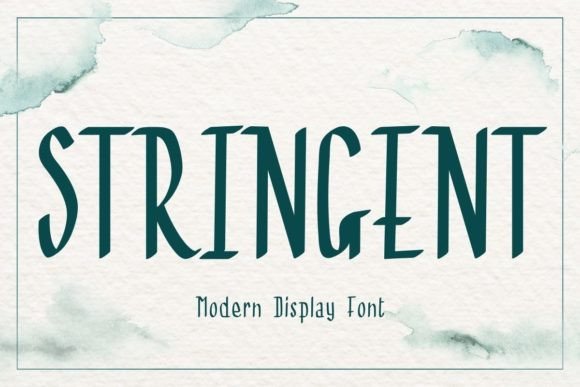
Stringent Font
**Immerse yourself in the allure of Stringent Font, where elegance meets allure.**
Prepare to be captivated by Stringent Font, a mesmerizing display font that will infuse your designs with an air of sophistication. Every stroke, every curve, every line is crafted with a touch of modern flair, beckoning you to create masterpieces that transcend the ordinary.
Step into a world where simplicity and impact collide effortlessly. Stringent Font is your secret weapon for crafting titles that steal the spotlight, news headlines that demand attention, and marketing materials that leave an unforgettable mark. Its clean lines and understated grace lend a timeless quality to any project, ensuring that your message resonates with your audience on a profound level.
With Stringent Font, you're not just downloading a font; you're embarking on a journey of self-expression. Let your creativity soar as you explore the endless possibilities that lie within its digital embrace. Whether you're composing a love letter that whispers sweet nothings or forging a business proposal that commands respect, Stringent Font will be your steadfast companion, elevating your words to new heights of eloquence.